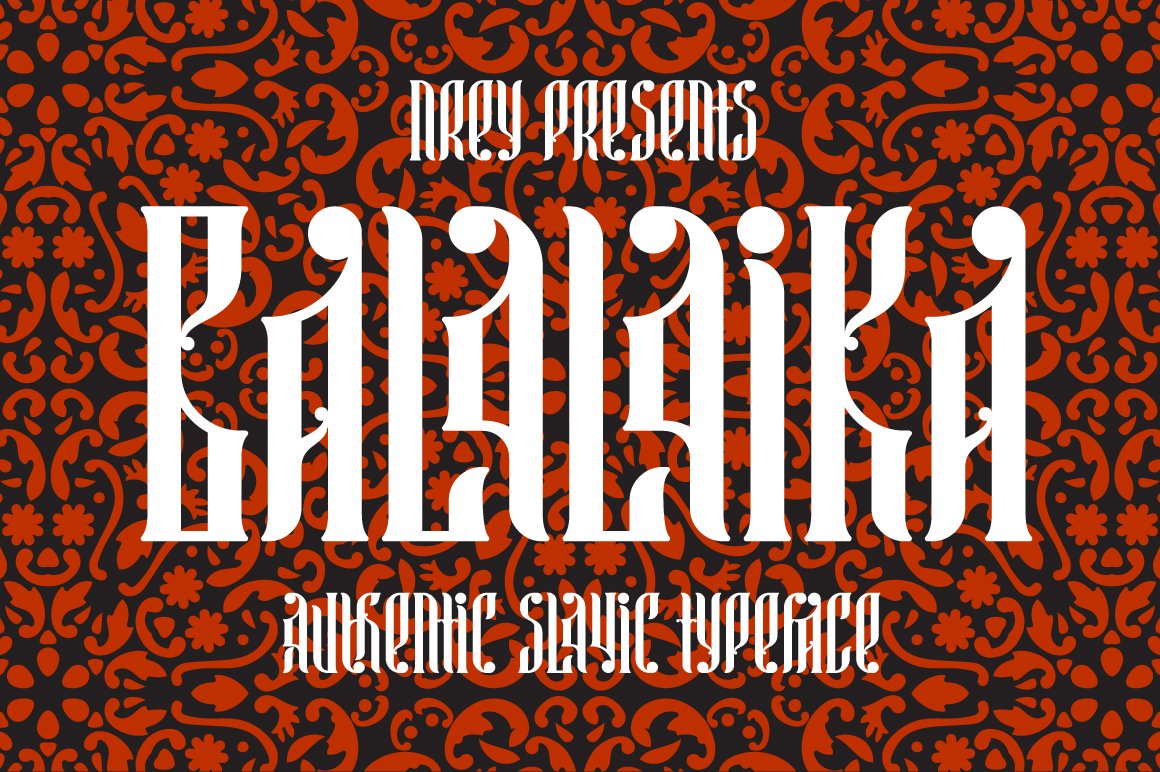
Discover the Timeless Elegance of the Balalaika Font
Have you ever stumbled upon a vintage poster or an old book and been captivated by the unique, ornate typography? For designers, that moment of inspiration is what drives creativity and fuels the desire to create something truly special. The Balalaika Font is one such discovery that combines the classic elegance of ethnic Slavonic style with the modern flair of contemporary design.
As a decorative display font, the Balalaika Font is perfect for adding a touch of sophistication to your designs. Whether you’re working on a project that requires a bold, eye-catching headline or a more subtle, classic touch for your body text, this font is sure to impress. With its versatility and timeless appeal, the Balalaika Font is an invaluable asset for any designer looking to elevate their work to the next level.
- Unique Characteristics: The Balalaika font features a unique blend of traditional Russian and modern design elements, making it perfect for creating a distinctive and memorable visual identity.
Designer Review: Balalaika Font
Overall, I’m impressed with the Balalaika Font, but as with any design, there are some highs and lows. Let’s start with what works well ✨:
- Unique character: The Balalaika Font is certainly one-of-a-kind, and its quirky design can add a touch of personality to any project.
- Well-crafted ligatures: The font’s ligatures are well-designed and add to the overall aesthetic of the font.
- Good for titles and headings: The Balalaika Font is particularly well-suited for use in titles and headings, where its bold and eye-catching design can really shine.
However, there are a few limitations to consider ⚠️:
- Limited legibility: The Balalaika Font’s unique design can sometimes make it difficult to read, especially in smaller sizes.
- Lack of language support: The font appears to be primarily designed for Latin-based languages, and may not support other languages as well.
- Not ideal for body text: While the Balalaika Font can work well for titles and headings, it’s not the best choice for body text, where readability is key.
Overall, the Balalaika Font is a fun and unique choice for designers looking to add some personality to their projects. Just be sure to use it judiciously and in the right contexts.
Tips for Getting the Most Out of Balalaika Font
For a more dramatic effect, use the Balalaika font in bold or italic style.
Combine the Balalaika font with other decorative fonts for a unique and eye-catching design.
The Balalaika font is ideal for:
Music-inspired designs and projects.
Traditional or vintage-themed designs.
Adding a touch of elegance and sophistication to your design.
Alternatives to Balalaika Font for Designers
The Balalaika Font is a unique, handwritten script font, but sometimes designers may need alternative options. Here are a few alternatives to consider:
The Great Vibes Font is a beautiful, elegant script font that is perfect for creating a romantic or vintage feel in your designs. It has a more refined and polished look compared to the Balalaika Font, making it suitable for formal or professional projects. Great Vibes Font is ideal for use in invitations, wedding stationery, or any project where a touch of elegance is required.
The Carolyna Pro Font is a modern, elegant script font that is great for creating a sophisticated and luxurious feel in your designs. It has a more geometric and clean design compared to the Balalaika Font, making it suitable for use in high-end branding, advertising, or packaging projects. Carolyna Pro Font is ideal for use in projects where a touch of luxury and sophistication is required.
The Alex Brush Font is a beautiful, handwritten script font that is perfect for creating a personal and intimate feel in your designs. It has a more organic and expressive design compared to the Balalaika Font, making it suitable for use in projects where a touch of warmth and personality is required. Alex Brush Font is ideal for use in projects such as blog posts, social media, or any project where a personal touch is needed.